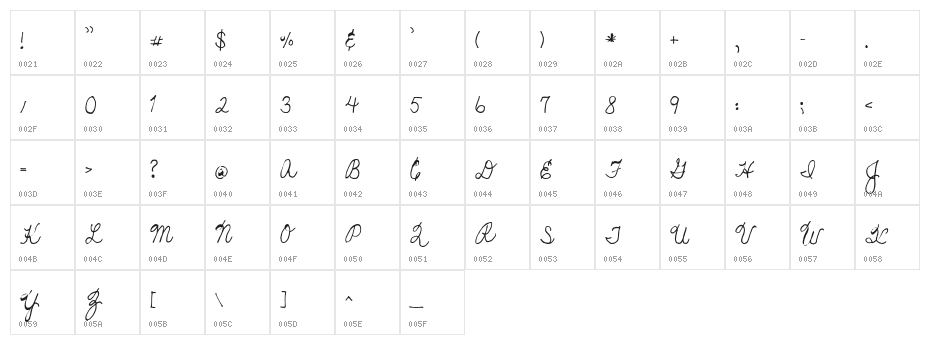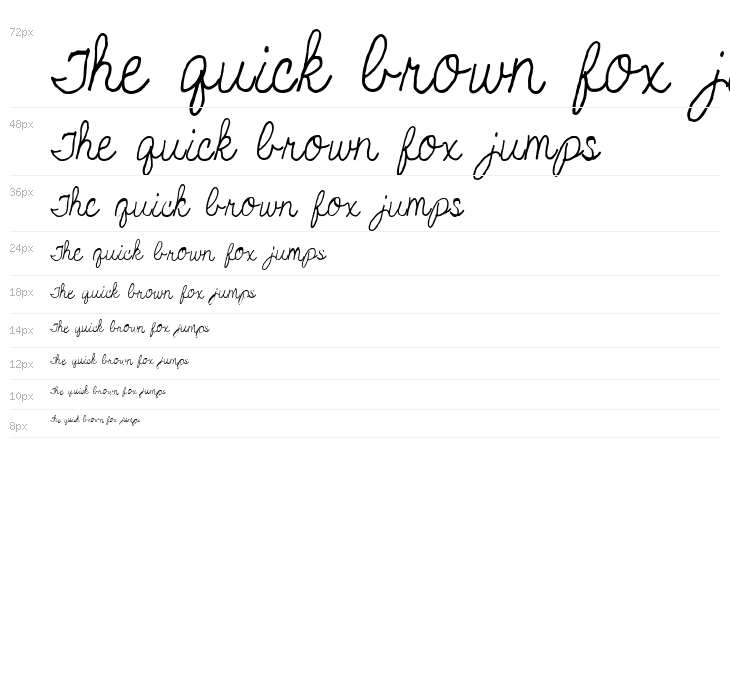
SF-Bobbi2 Font
SF-Bobbi2 Description
This font features a flowing, cursive style with a playful and informal appearance. The letters are connected, creating a sense of continuity and movement. The uppercase characters are slightly more ornate, with loops and swirls that add a touch of elegance. The lowercase letters maintain a consistent height, contributing to a harmonious look. Numbers and special characters are designed to match the overall style, ensuring a cohesive appearance across all text. The strokes are smooth and consistent, with a medium contrast that enhances readability while maintaining the font's decorative nature.